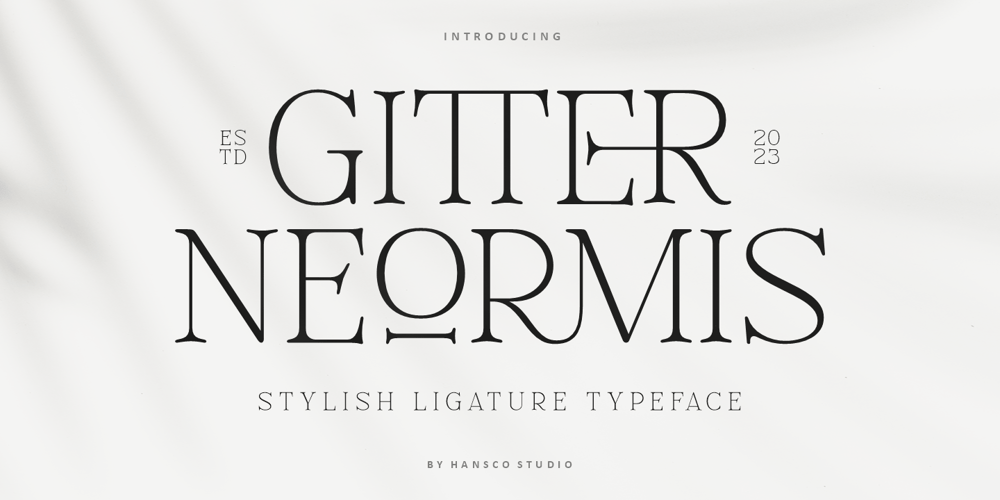
Gitter Neormis Font Family was designed by Burhan Afif and published by HansCo. Gitter Neormis contains 1 styles and family package options. Gitter Neormis Font is a classy display serif font with unique look that is perfect for multipurpose projects. I made Gitter Neormis Font inspired by the concept of romantic vibes and made it into a modern yet luxury style. This font is also looks elegant and will fit well in any design and very recommended for logo, crafts, posters, books, branding, quotes, print templates, packaging, invitations, product labels, advertising, wedding project and more.Enjoy!